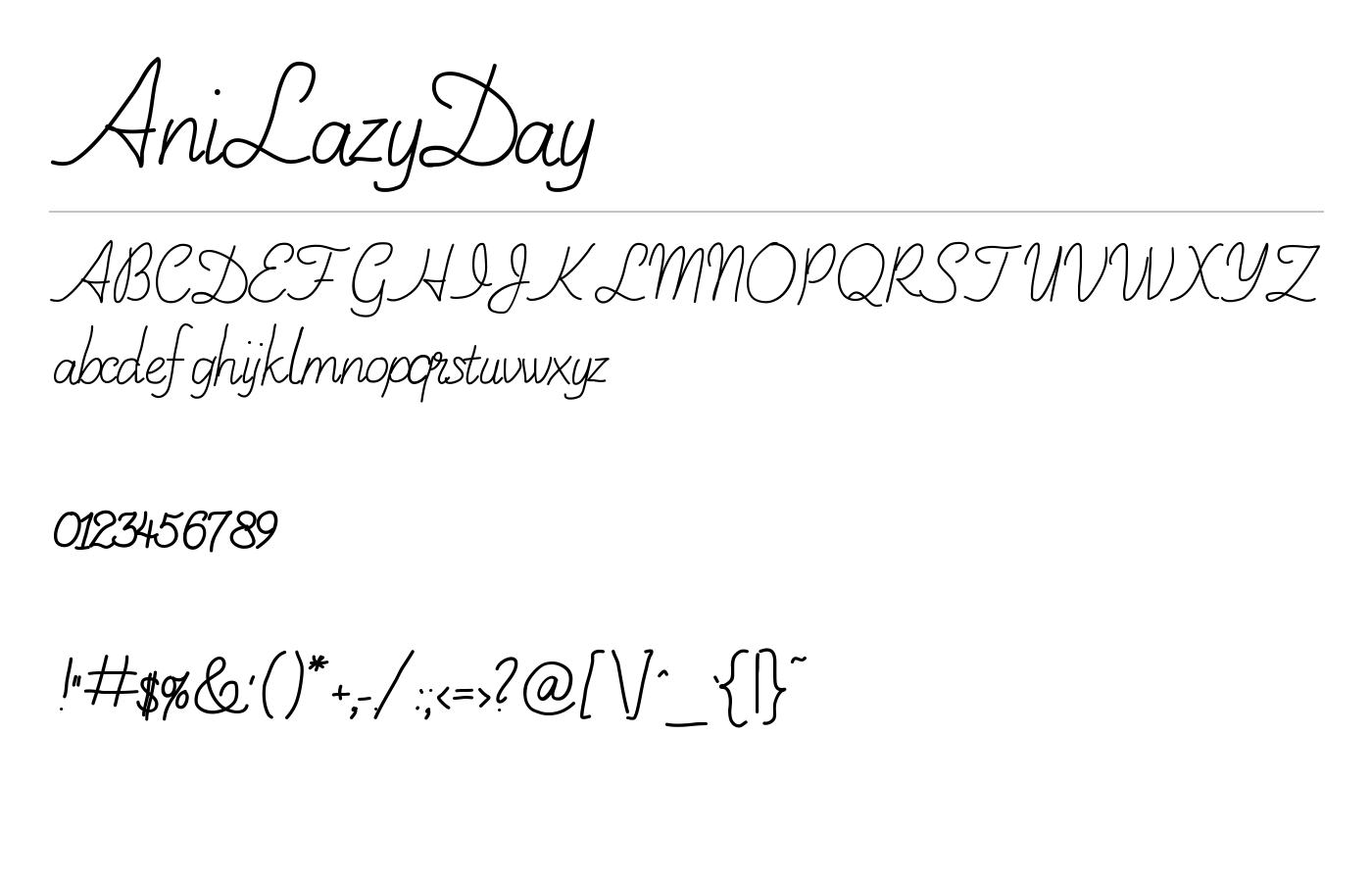
AniLazyDay is a delicate and elegant handwritten script font featuring slender, flowing letterforms with a natural, casual feel. Its light weight and smooth, slightly playful curves make it ideal for creative projects, invitations, or branding that seeks a personal and charming touch. This font works well in headlines or decorative text where a warm, approachable vibe is desired.
AniLazyDay Font